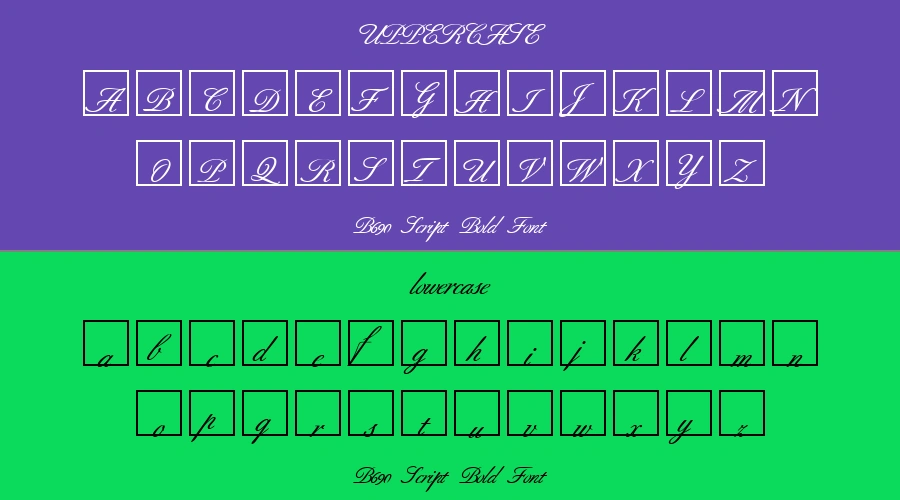
About B690 Script Bold Font
B690 Script Bold Font stands out for its distinctive combination of graceful serifs and rhythmic flow. Ideal for wine labels, it provides the longevity and application safety that professional projects demand. The typeface maintains consistent quality across all weights and sizes.
Key features include refined creative flair and practical brand signatures, enhancing typographic expression. In marketing collateral applications, B690 Script Bold Font demonstrates exceptional texture integration. The crossbar height and creative versatility contribute to its distinctive character and professional appeal.